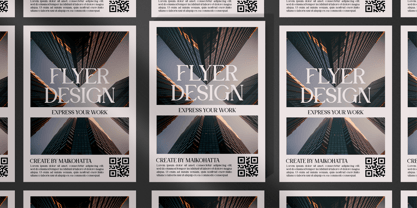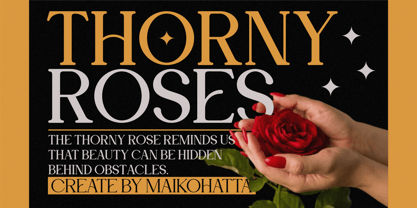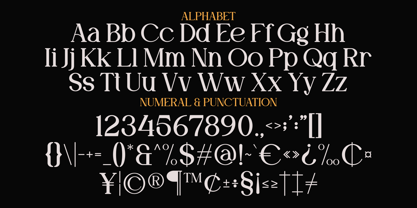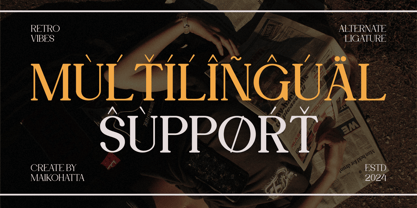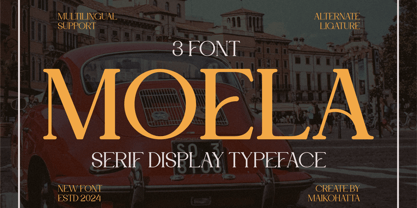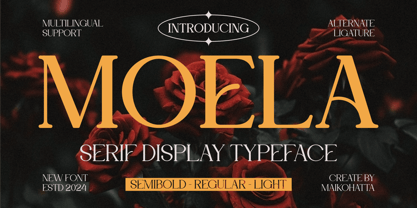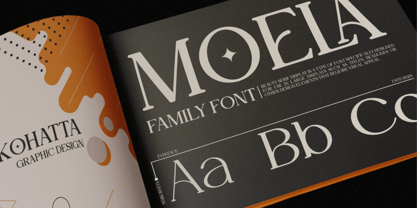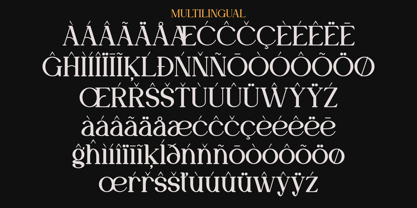
Moela
The Moela Font Family was designed by Gilang Ternadho and published by Maikohatta. Moela contains 3 styles and family package options. More about this family
Introducing our new product Moela Serif Display Typeface
This font is a typographic masterpiece that harmonizes elegance and sharpness. Every letter within this font is meticulously designed, with a keen focus on balanced proportions and impeccable alignment. This font is well-suited for a variety of contexts, such as print design, promotional materials, or magazine layouts.